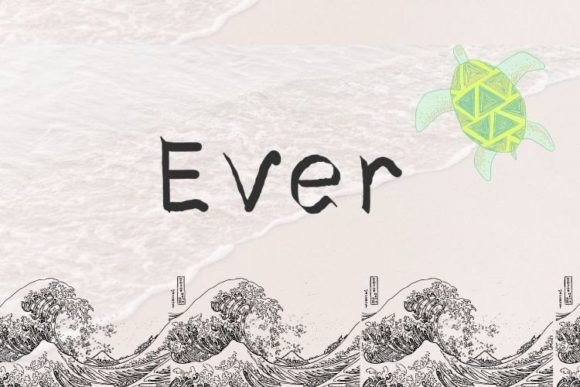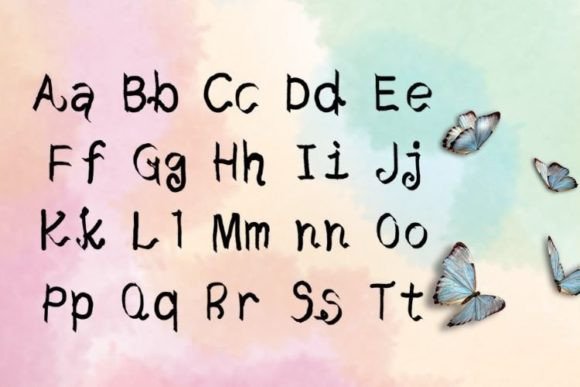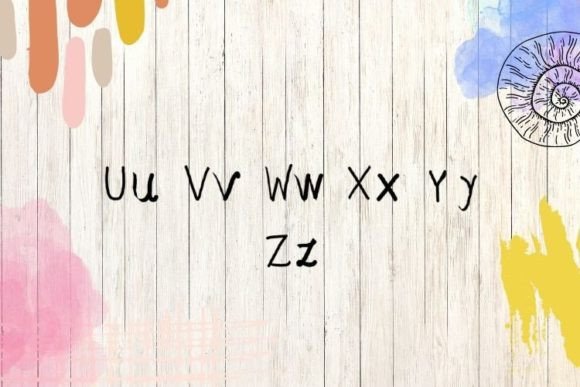
About Ever Font
“Ever” is a playful and uncomplicated handwritten font that radiates fun and simplicity. Its versatile nature allows it to seamlessly integrate into a variety of design projects, lending them a charming and childlike appeal. Whether you’re working on invitations, social media graphics, posters, or any creative endeavor, “Ever” brings a cute and playful touch to your designs, capturing the essence of youthful innocence.
The font’s whimsical letterforms and cheerful demeanor make it a perfect choice for projects aimed at children or those seeking to evoke a sense of childlike wonder. Its friendly and approachable style creates an instant connection with the audience, making it particularly well-suited for educational materials, children’s books, nursery decor, and playful branding.
“Ever” adds a delightful and lighthearted atmosphere to your designs, infusing them with a sense of joy and creativity. Its simplicity and readability make it accessible to a wide range of audiences, including young readers and their parents. The font’s cute and childish touch brings a sense of playfulness to your text, making it visually engaging and appealing.
In addition to its versatility, “Ever” has the ability to convey a sense of innocence and spontaneity. Its handwritten charm gives your text a personal and authentic feel, enhancing the overall emotional connection with the audience. Whether used for playful invitations or cheerful social media posts, “Ever” creates a positive and upbeat vibe, leaving a lasting impression on viewers.
Embrace the playful spirit of “Ever” and let it add a touch of childlike joy to your creative projects. Its fun and simple handwritten style make it a delightful choice for designs that aim to capture the imagination and curiosity of young audiences. With “Ever,” you can create designs that are not only visually appealing but also filled with the innocence and wonder of childhood, making them memorable and cherished by those who experience them.